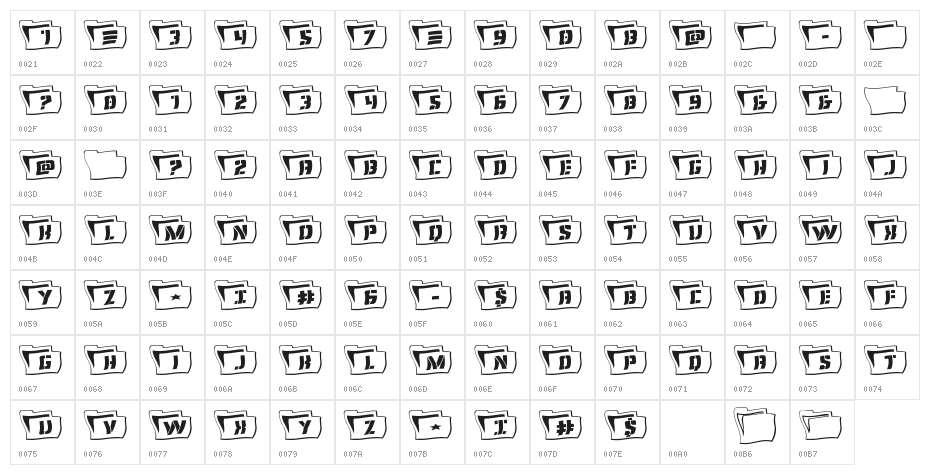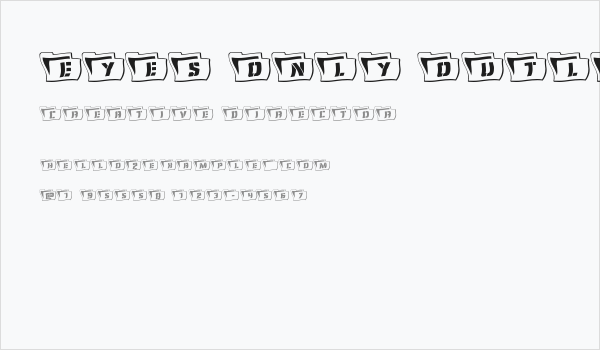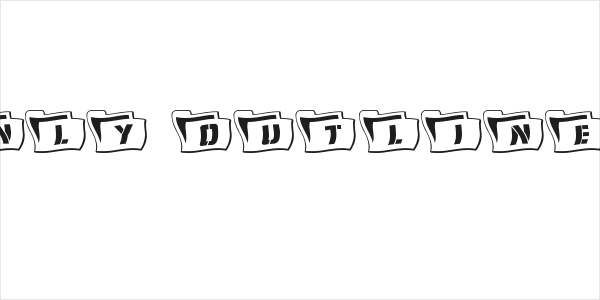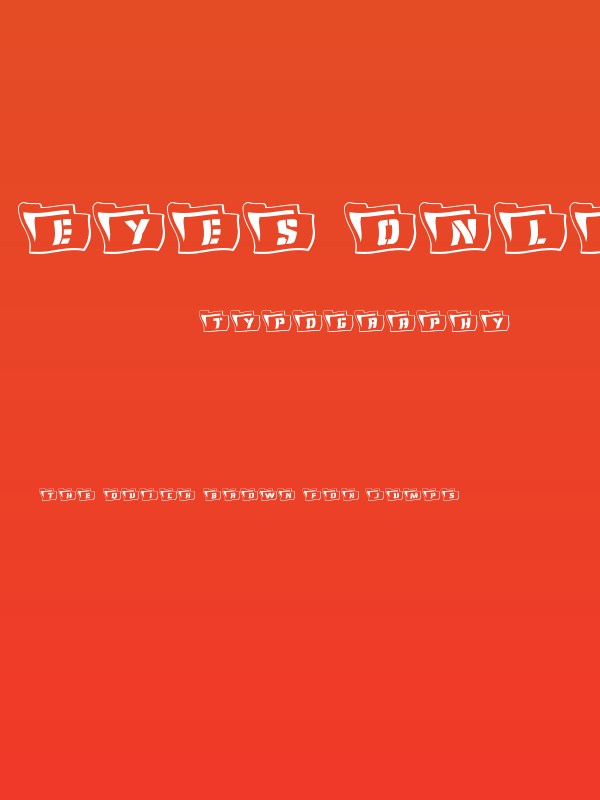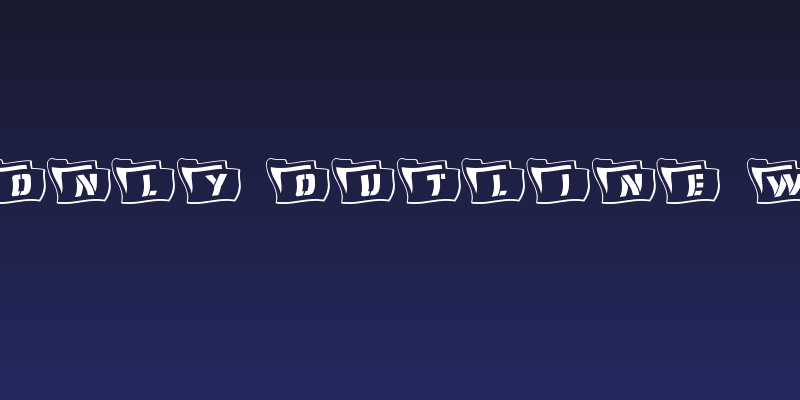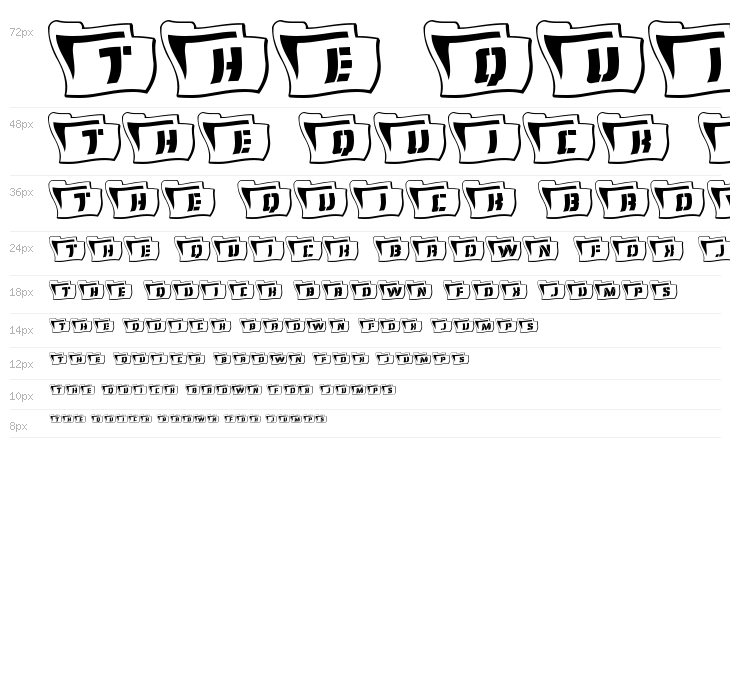
Eyes Only Outline Wavy 2 Font
Eyes Only Outline Wavy 2 Description
This font features a bold and dynamic style with a distinct wavy outline that adds a sense of movement and energy. The characters are enclosed in a unique, angular shape that gives them a three-dimensional appearance. The bold strokes and sharp edges create a striking visual impact, making it suitable for attention-grabbing designs. The uppercase and lowercase letters maintain a consistent style, while the numbers and special characters complement the overall aesthetic. The font's playful yet edgy design makes it versatile for various creative projects.
| Proposed Projects | Ideal for posters, album covers, branding, and any project needing a bold, eye-catching typeface. |